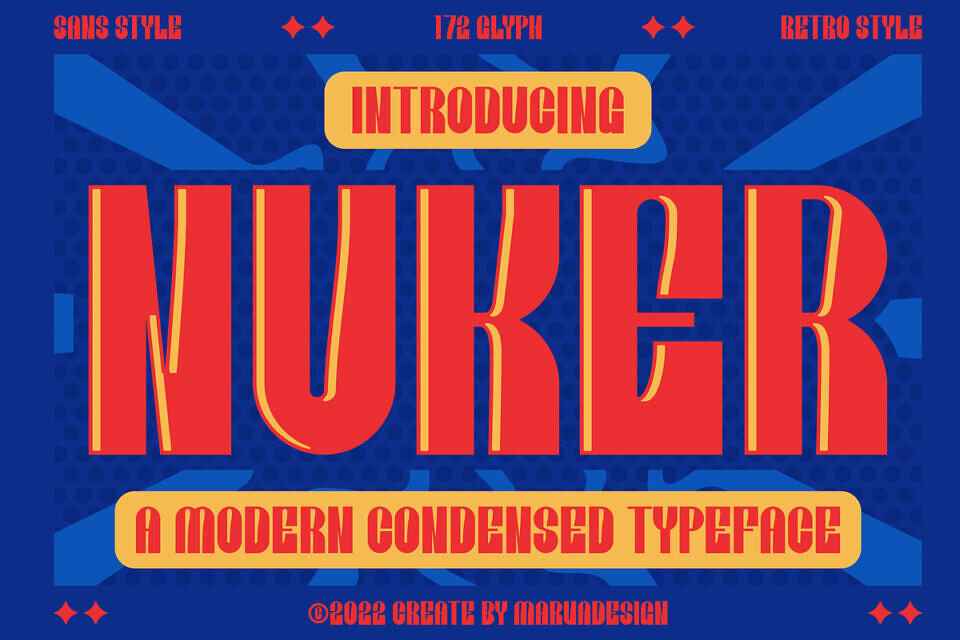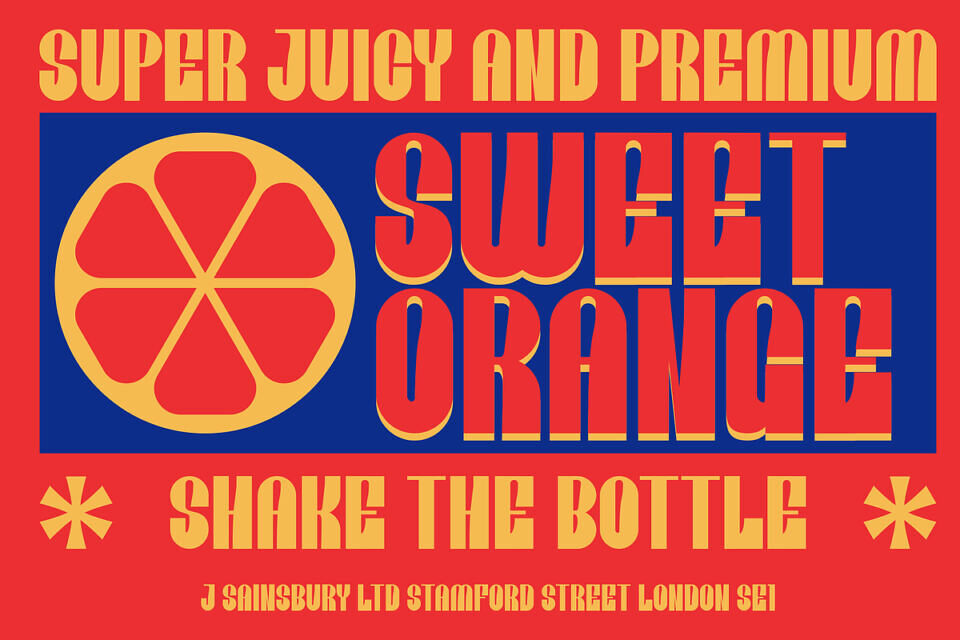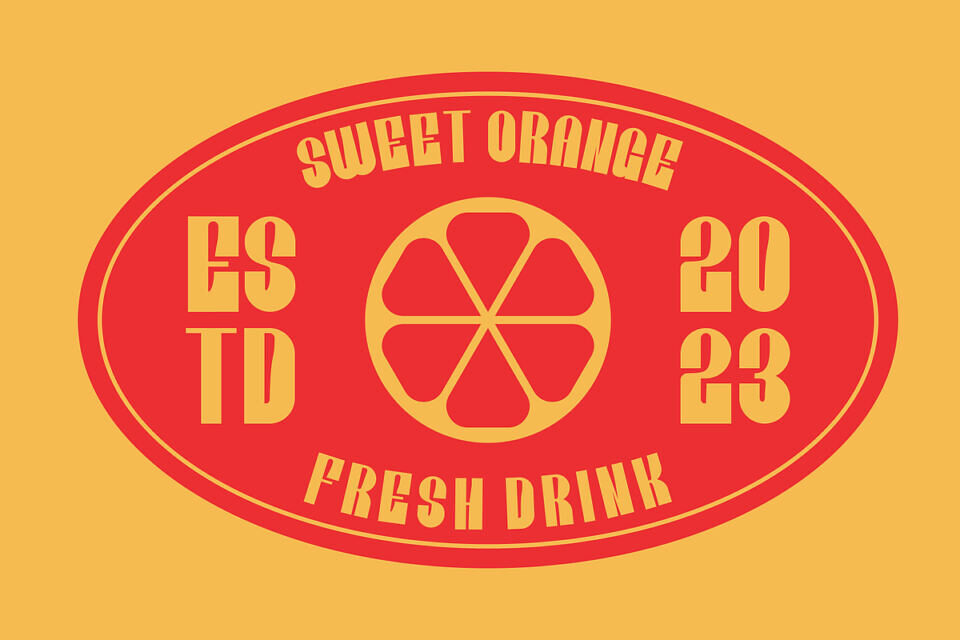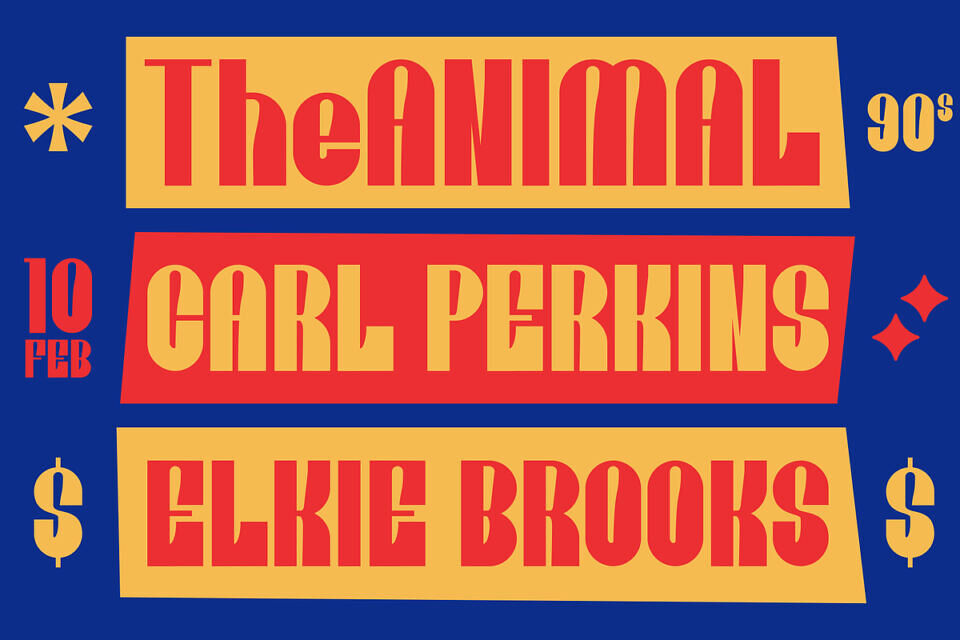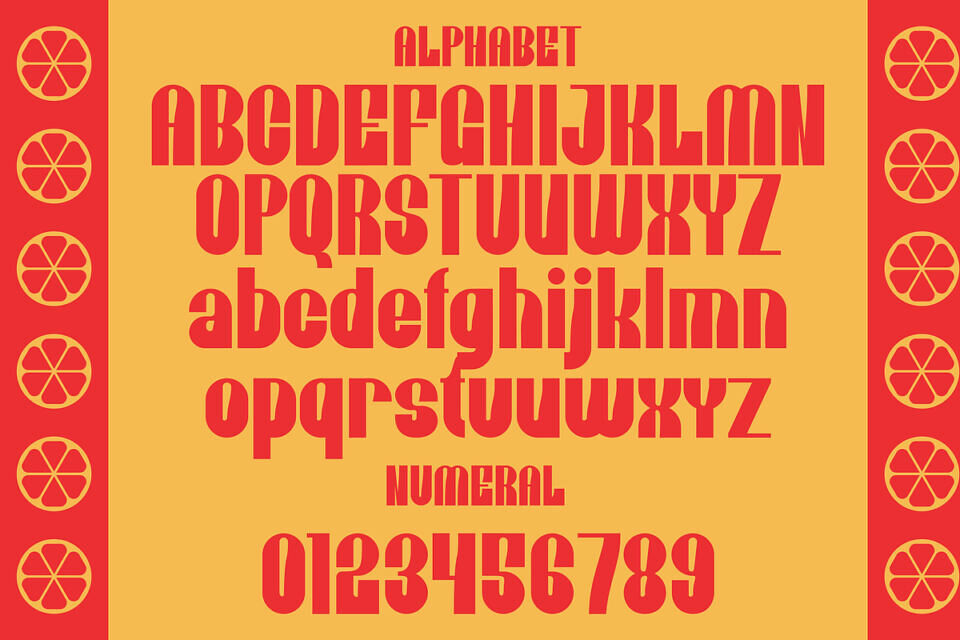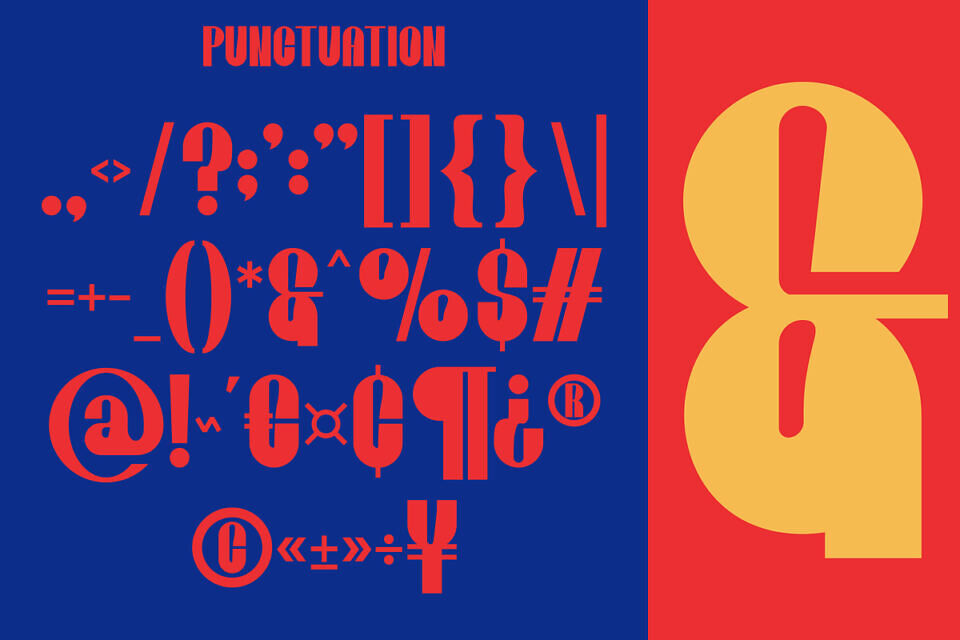
Nuker Font
Nuker is a sleek and contemporary font that’s slim and compact. Its letters stand tall and close together, making it perfect for catching attention in headers, logos, or posters. With its modern style, Nuker adds a touch of sophistication to any design while still remaining easy to read.